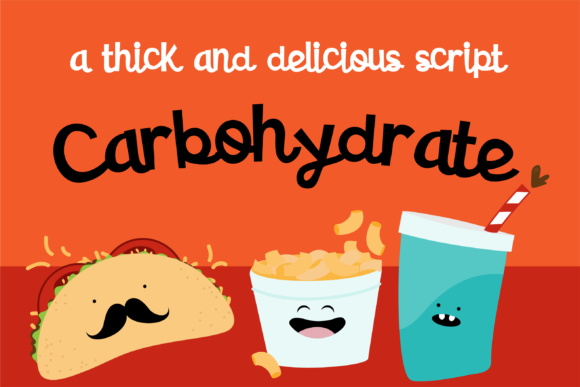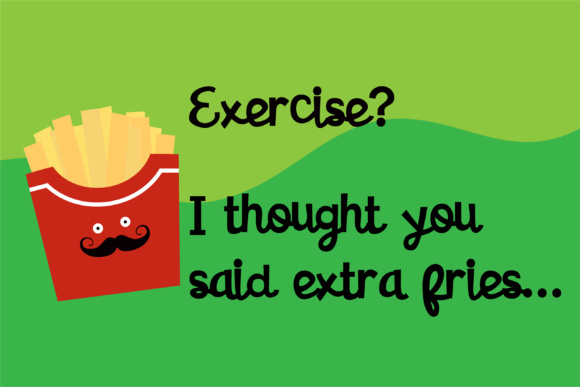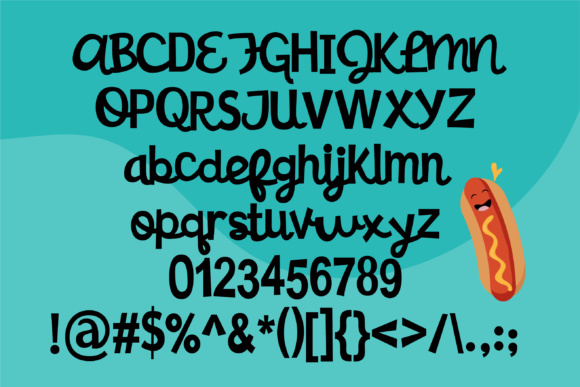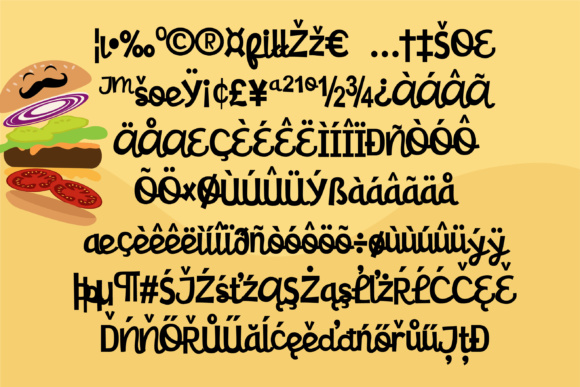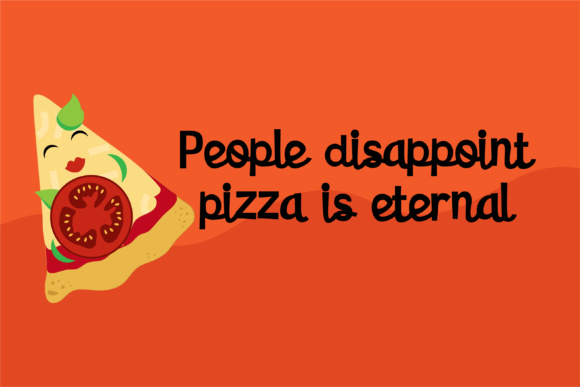
HomeScript FontsCarbohydrate Font Script Fonts Carbohydrate Font FacebookXPinterestWhatsApp Carbohydrate Font Poster 2 Carbohydrate Font Poster 3 Carbohydrate Font Poster 4 Carbohydrate Font Poster 5 About Carbohydrate Font The Carbohydrate is a whimsical cursive font that has fun and bold quasi-script lettering. DOWNLOAD ON CREATIVE FABRICAThis font is sold and delivered by Creative Fabrica. Font Canyon may earn a commission if you buy through this link. People also explored Nightingale Font Bhagkuan Font Ekela Punch Font Monty Right Font Dawn Font Amynthor Font Mina Avocado Smoothie Font Cattleprod PB 334 0 TagsCarbohydrate Font Previous articleEvil Olivia FontNext articleCranky Font LEAVE A REPLY Cancel reply Comment: Please enter your comment! Name:* Please enter your name here Email:* You have entered an incorrect email address! Please enter your email address here Website: Save my name, email, and website in this browser for the next time I comment. Personal Use Free Monogram Calligraphy Personal Use Free Read more about this font Americana Personal Use Free Read more about this font Rumaniaya Personal Use Free Read more about this font Shnobel Personal Use Free Read more about this font BLOG Transform Your Website: Elevate Your Typography with 7 Best Web Font Generators Are you ready to transform your website's typography from ordinary to extraordinary? Great! Today, we're diving into the world of web font generators, which... 5 Fonts That Will Dominate Design Trends in 2026 Top 7 Google Fonts Alternatives for Faster and Privacy-Friendly Web Design (2025) Free Fonts Risk: Why Free Fonts Can Be Dangerous for Designers